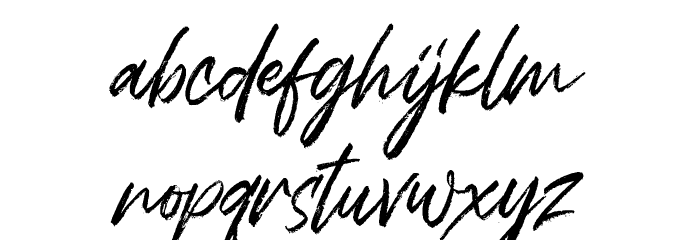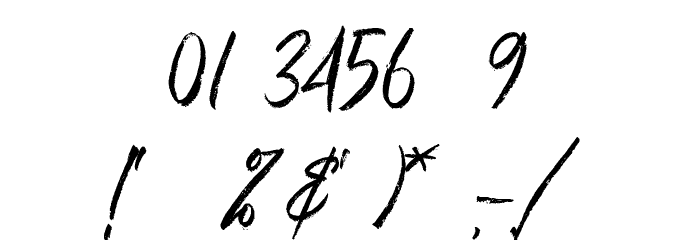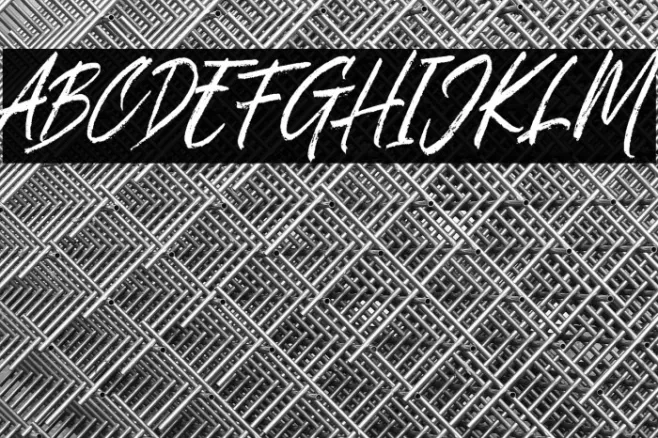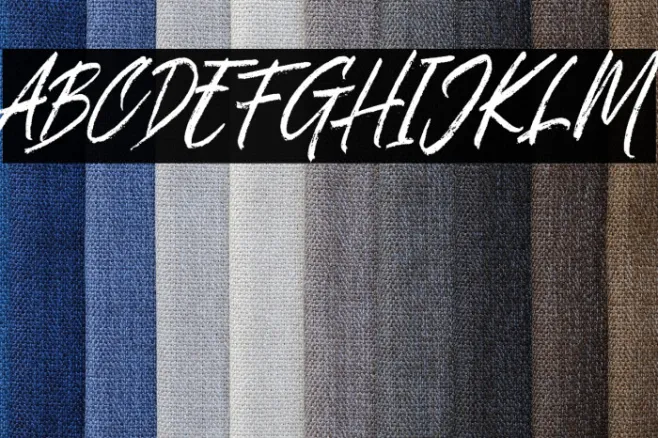
Shoufa Font
This font exudes a dynamic and expressive style, characterized by its bold and fluid strokes. The letters are crafted with a sense of motion, resembling a handwritten script that is both elegant and energetic. The uppercase and lowercase letters maintain a consistent flow, with slightly varying stroke widths that add to its lively appearance. Numbers and special characters are integrated seamlessly, maintaining the overall aesthetic. This font is ideal for projects that require a personal touch, such as invitations, branding, or artistic designs.
A dynamic, handwritten script font with bold, fluid strokes.
- Font: Shoufa
- Proposed Projects: Ideal for invitations, branding, artistic designs, and personal projects.
- Category: Script
- Use Case: Logos, Headlines, Artistic designs